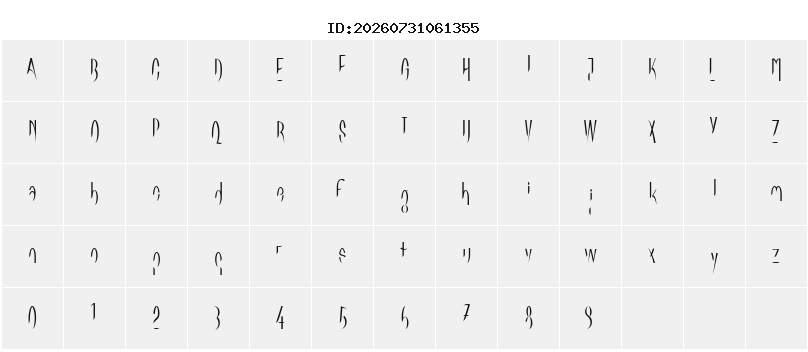
• Font Name: LTFlamingo
• Full Font Name: Linotype Flamingo
• Designer: Michael Leonhard
About LTFlamingo.ttf
LTFlamingo.ttf is a modern, elegant sans-serif font designed for ultimate readability and visual harmony. Perfect for branding, headlines, web design, and print materials.